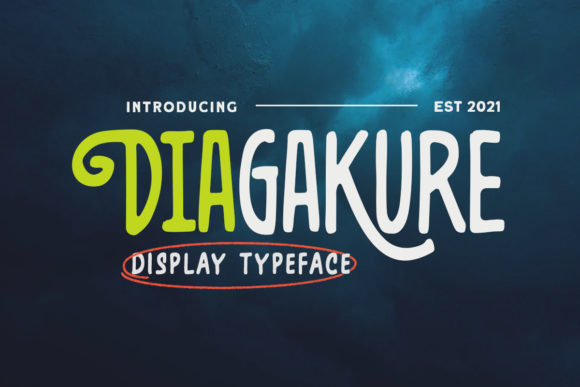
Diagakure Font
Diagakure is a cool, adaptable and vintage styled display font. It is PUA encoded which means you can access all of the glyphs and swashes with ease!
Fall in love with its incredibly versatile style and use it to create spectacular designs!